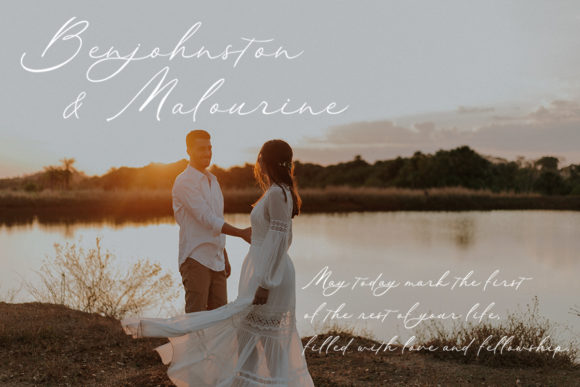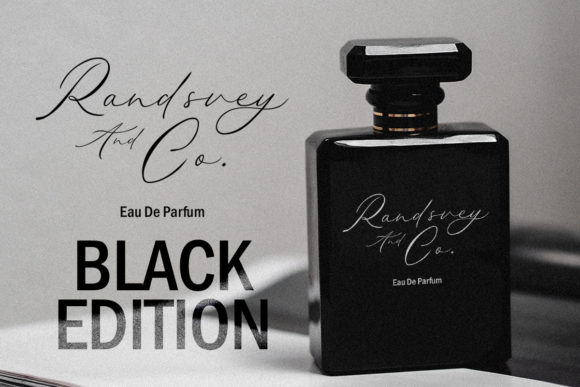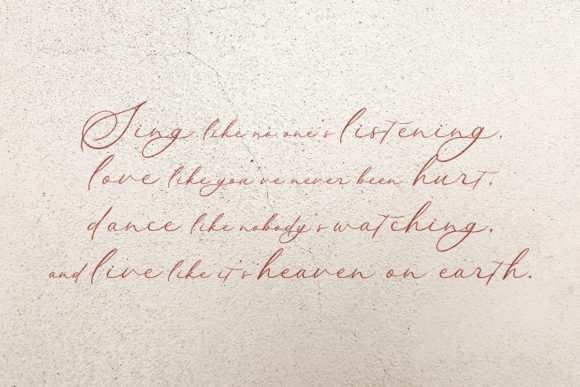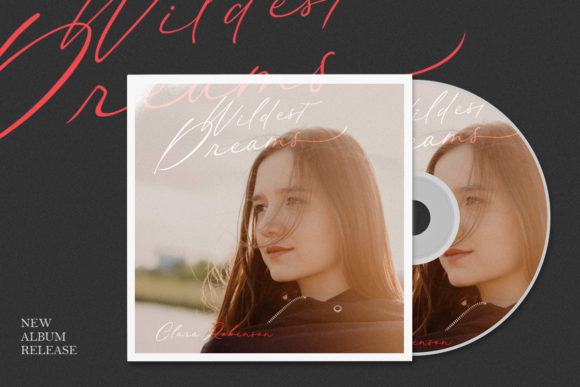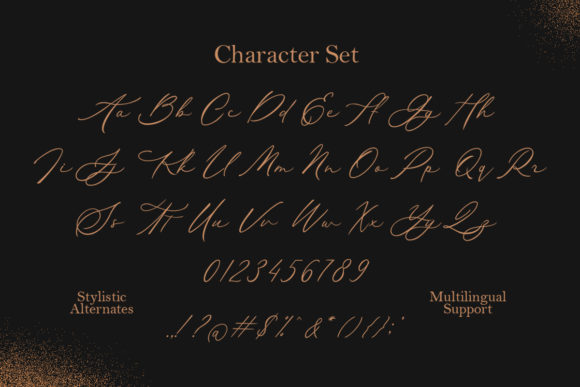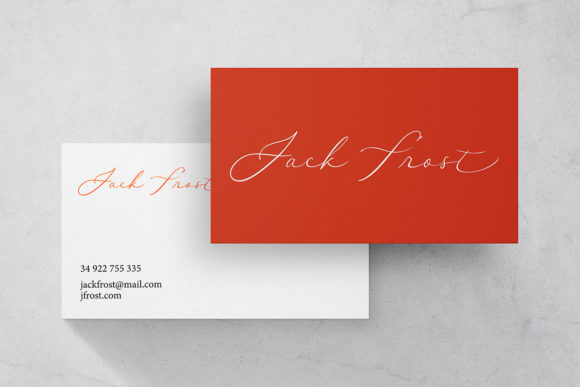
Introducing Ansylia Font: The Perfect Addition to Your Design Arsenal
Are you a designer or crafter looking for a font that can elevate your creative projects? Look no further than Ansylia Font, a thin and casual script font that’s simple, easy to use, and stunningly beautiful. In this article, we’ll dive into the world of Ansylia Font, exploring its features, benefits, and uses, as well as provide tips on how to make the most of this versatile font.
What is Ansylia Font?
Ansylia Font is a modern script font that’s designed to be both elegant and approachable. Its thin lines and casual feel make it perfect for a wide range of design projects, from craft designs to digital media. With its simple and clean design, Ansylia Font is easy to read and use, making it a great choice for designers and crafters of all levels.
Key Features of Ansylia Font
- Thin and casual script font: Ansylia Font features thin lines and a casual feel that’s perfect for creating beautiful and elegant designs.
- Simple and easy to use: With its clean design and simple layout, Ansylia Font is easy to read and use, making it perfect for designers and crafters of all levels.
- Highly versatile: Ansylia Font can be used for a wide range of design projects, from craft designs to digital media, and can be paired with a variety of other fonts and design elements.
Benefits of Using Ansylia Font
So why choose Ansylia Font for your design projects? Here are just a few benefits of using this amazing font:
- Elegant and sophisticated designs: Ansylia Font is perfect for creating elegant and sophisticated designs that will stand out from the crowd.
- Easy to read and use: With its simple and clean design, Ansylia Font is easy to read and use, making it perfect for designers and crafters of all levels.
- Highly versatile: Ansylia Font can be used for a wide range of design projects, from craft designs to digital media, and can be paired with a variety of other fonts and design elements.
- Perfect for craft designs: Ansylia Font is perfect for craft designs, such as handmade cards, scrapbooking, and other paper crafts.
Tips for Using Ansylia Font
Here are a few tips for using Ansylia Font in your design projects:
- Pair with bold fonts: Ansylia Font looks great when paired with bold fonts, such as sans-serif fonts or serif fonts with a lot of personality.
- Use in combination with images: Ansylia Font looks great when used in combination with images, such as photographs or illustrations.
- Experiment with different colors: Ansylia Font looks great in a variety of colors, from bright and bold to soft and pastel.
- Use for headings and titles: Ansylia Font is perfect for headings and titles, and can be used to add a touch of elegance and sophistication to your designs.
In conclusion, Ansylia Font is a beautiful and versatile font that’s perfect for designers and crafters of all levels. With its thin lines, casual feel, and simple design, Ansylia Font is easy to read and use, and can be used for a wide range of design projects. Whether you’re creating craft designs, digital media, or simply looking for a font that can add a touch of elegance and sophistication to your designs, Ansylia Font is a great choice.